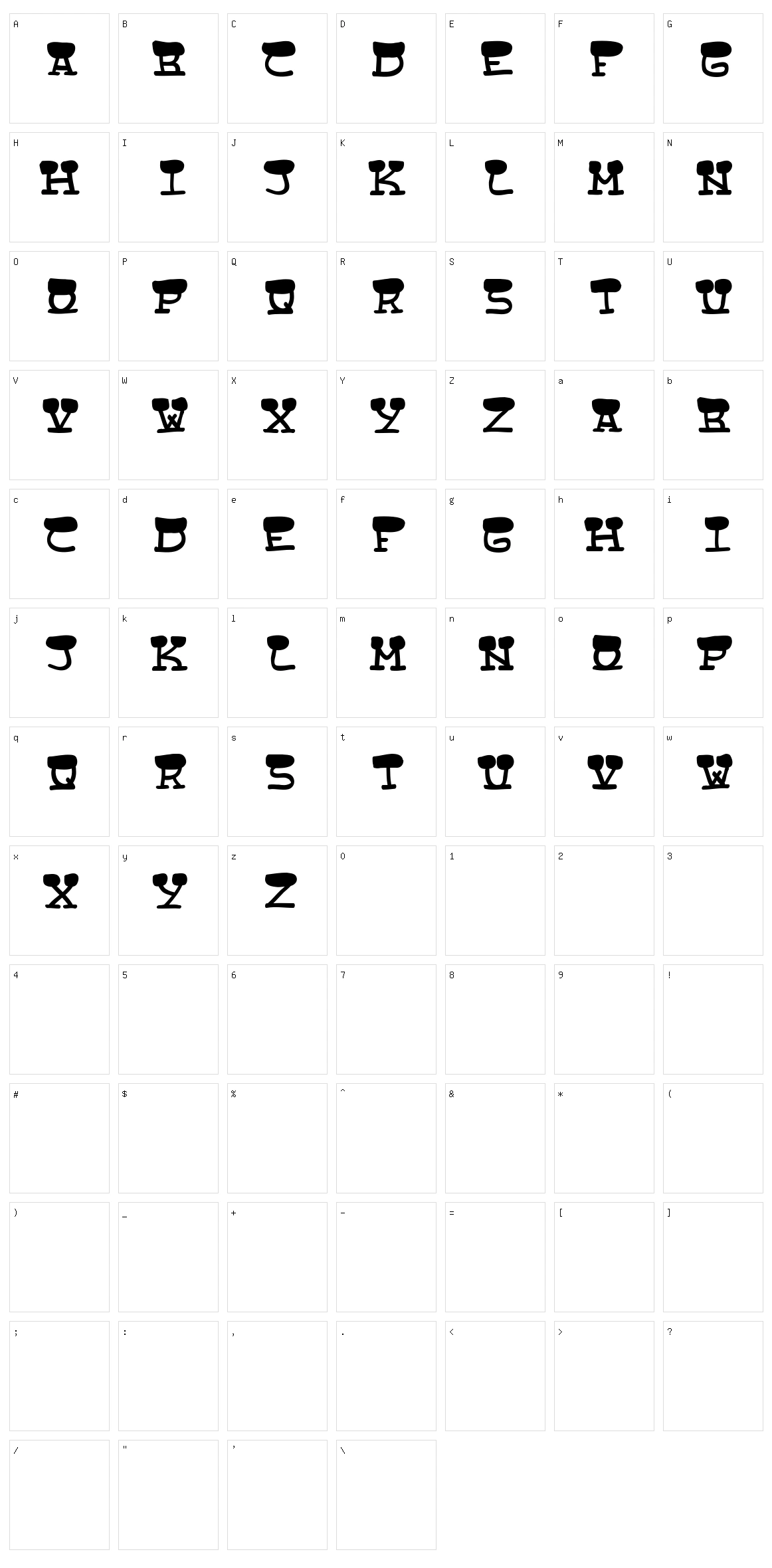
The free font Street Cowboys is carefully designed by Fausto Furioso, showcasing a thoughtful balance of creativity and usability and falls under the Western font style. When you download the ZIP file, it contains only 9.74 KB of font files, making it lightweight and quick to download. Please review the license details below to understand permitted usage and distribution rights. If license information is not available, we recommend using this font for personal projects only or contacting the author directly for commercial usage permissions.